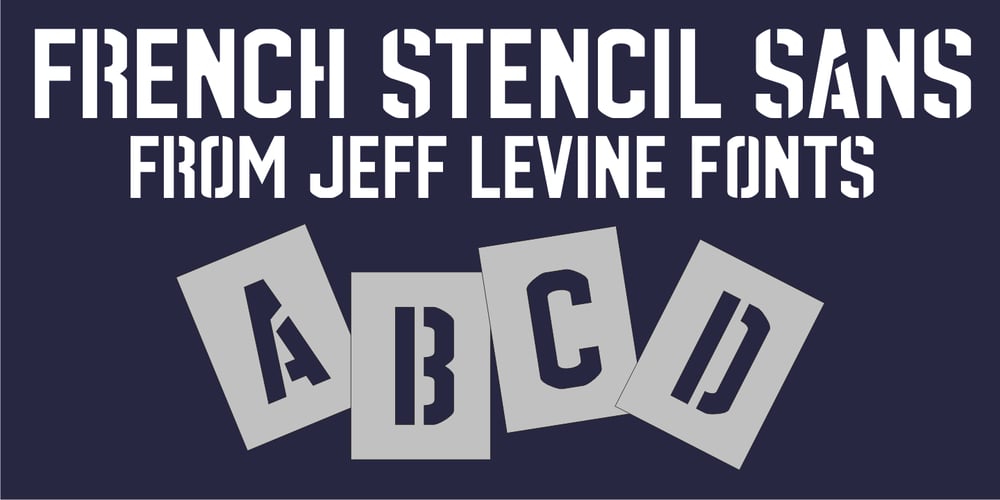
French Stencil Sans JNL Font Family was designed by Jeff Levine and published by Jeff Levine. French Stencil Sans JNL contains 1 styles and family package options. French Stencil Sans JNL is another typeface based on vintage French tin/zinc stencils. Slightly rounded corners and a “hand-cut” look add an interesting and charming variation that breaks away from the “standard” design of other metal stencil sets.